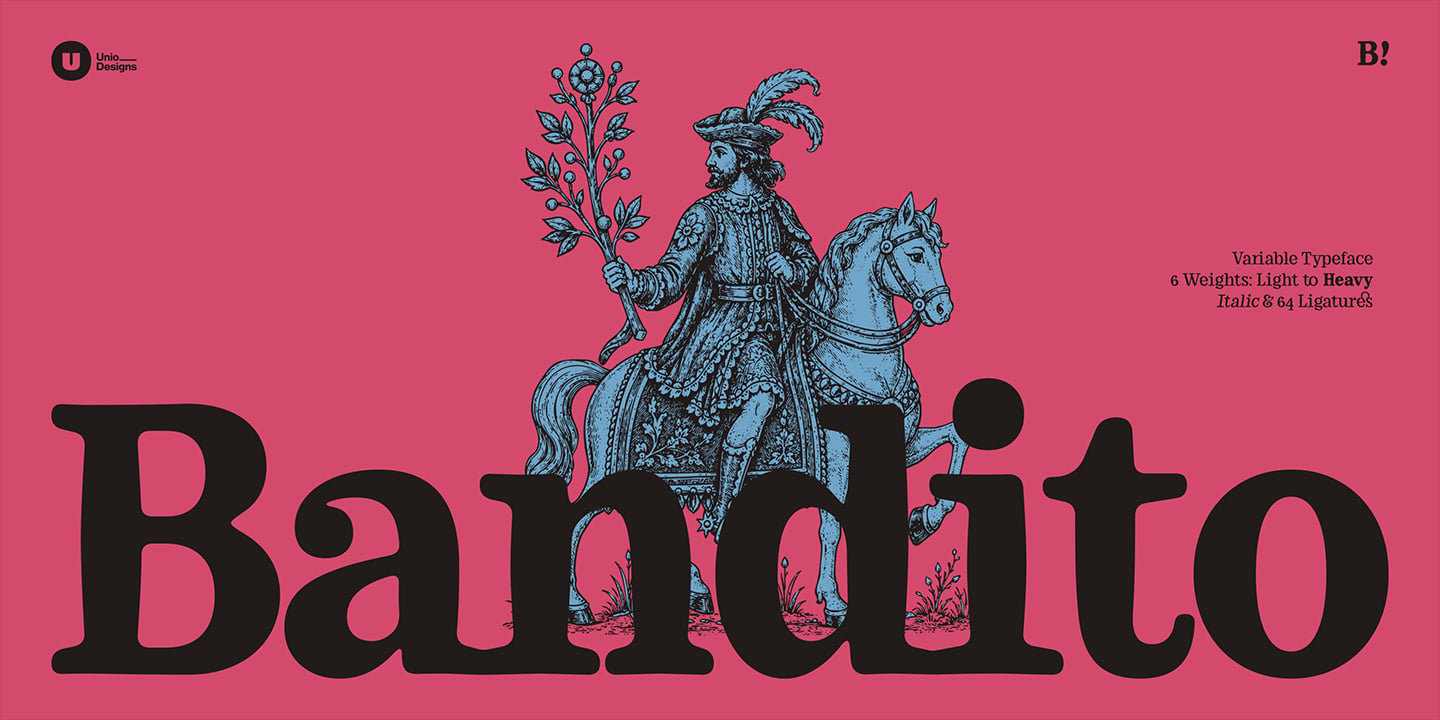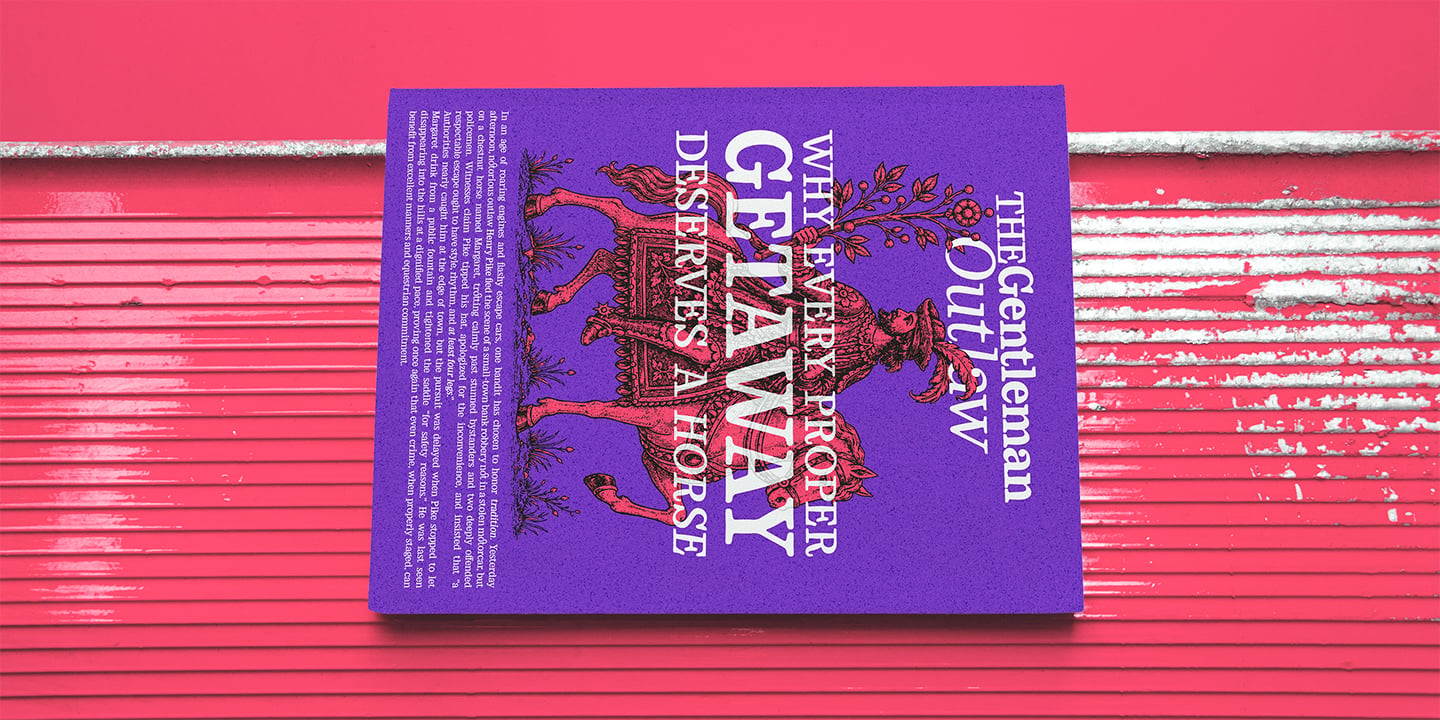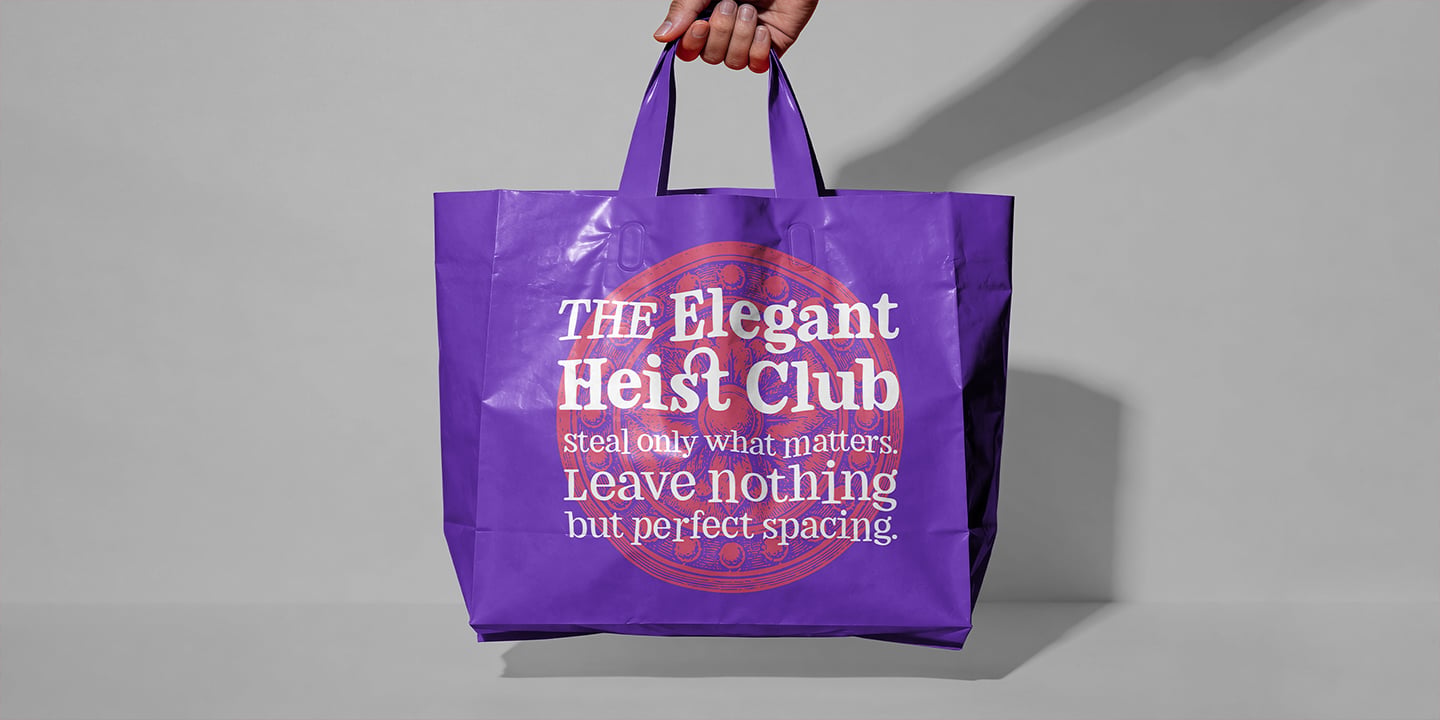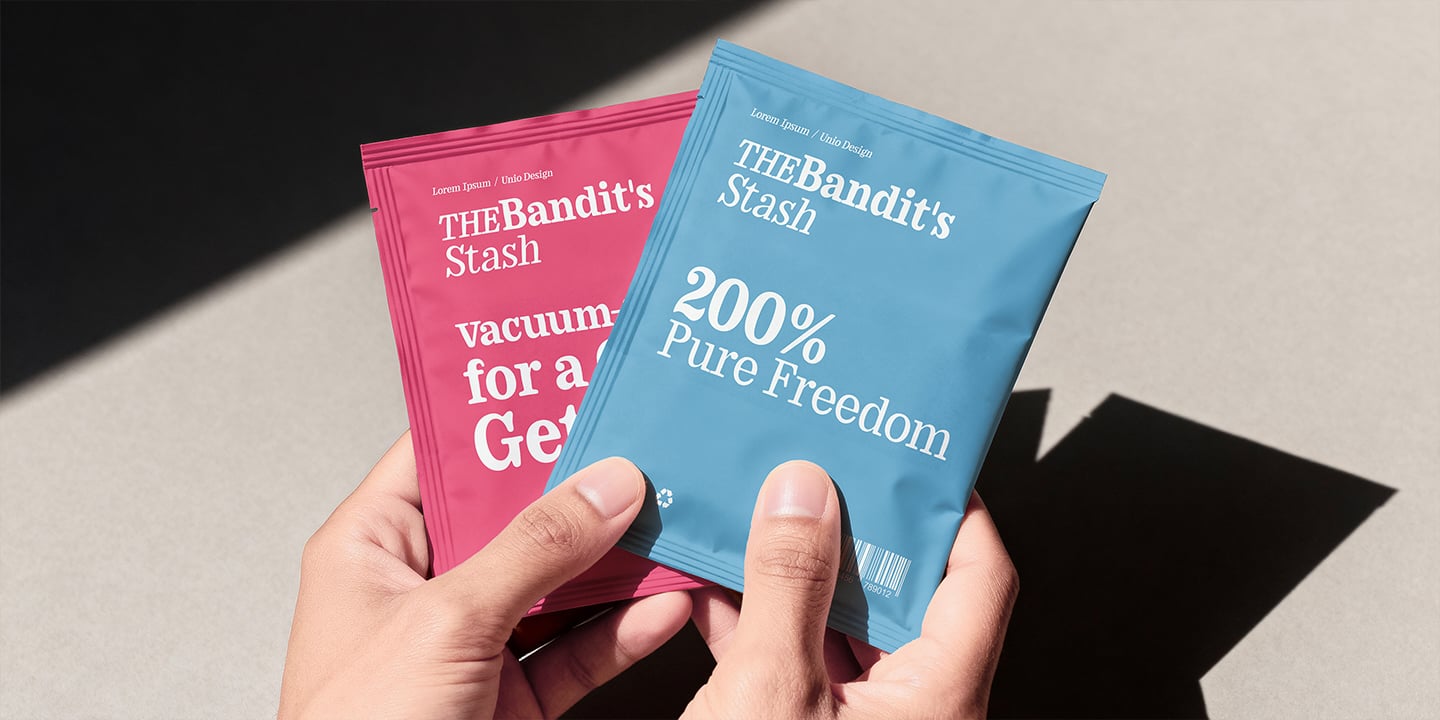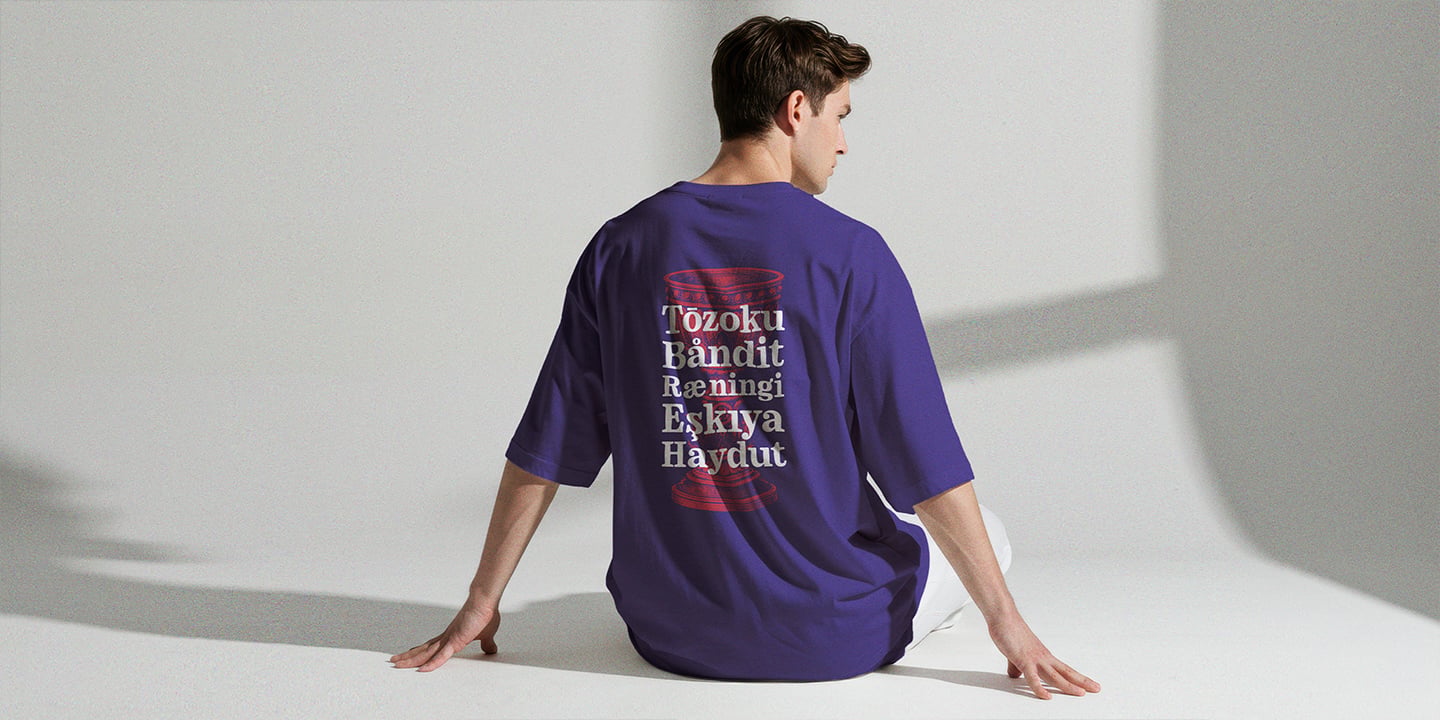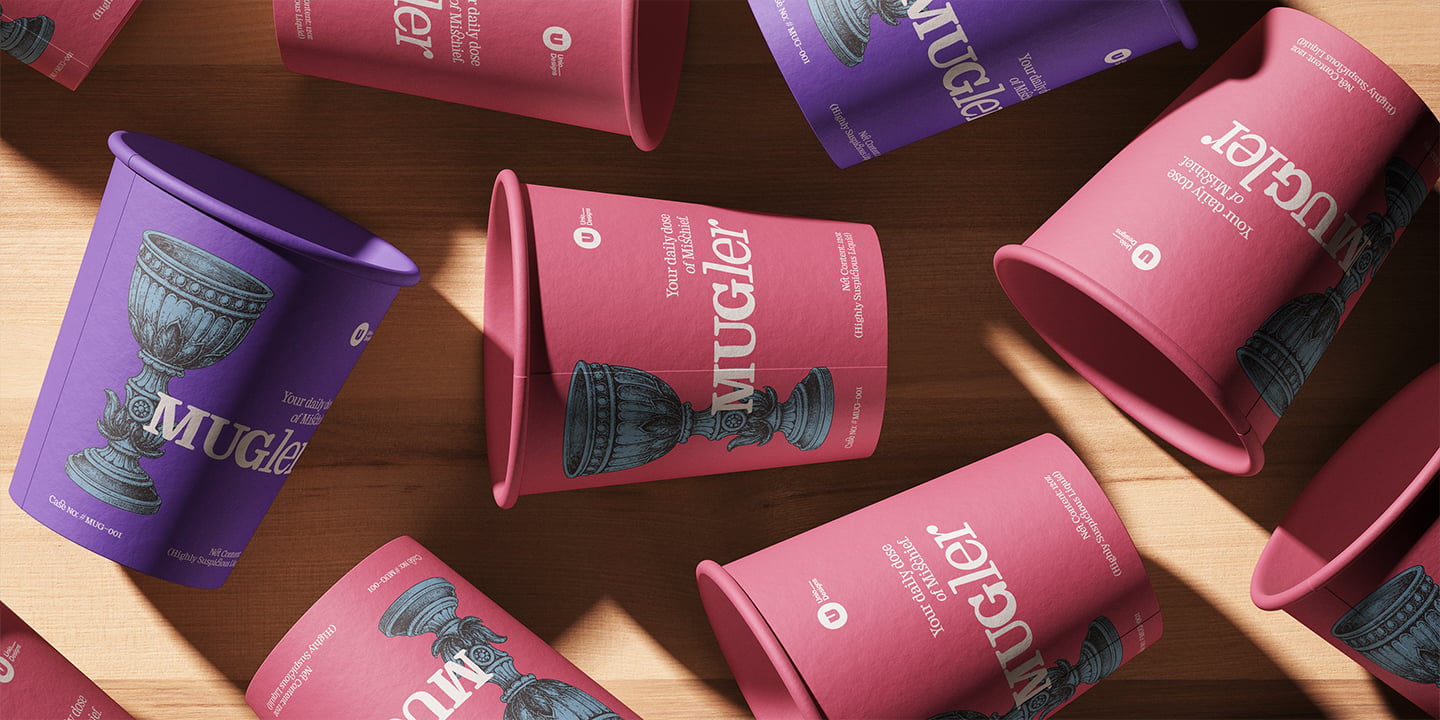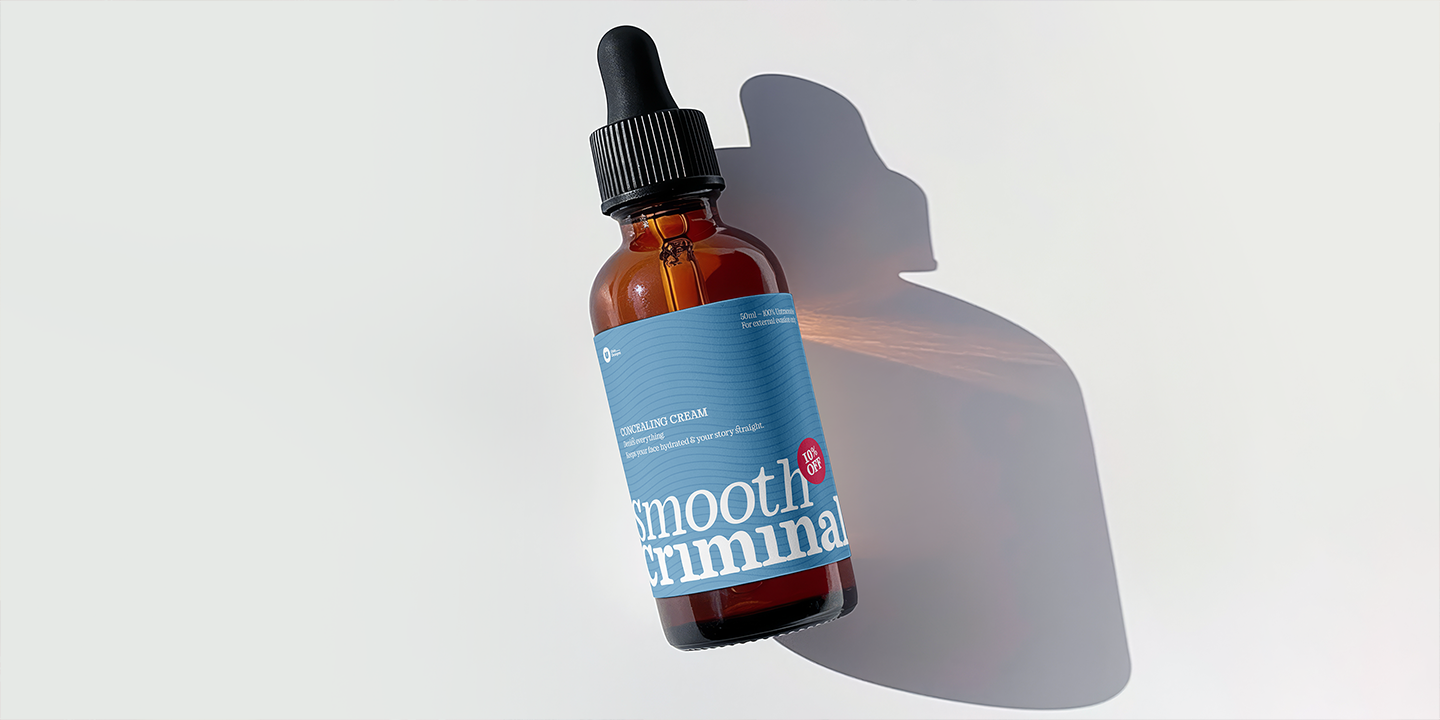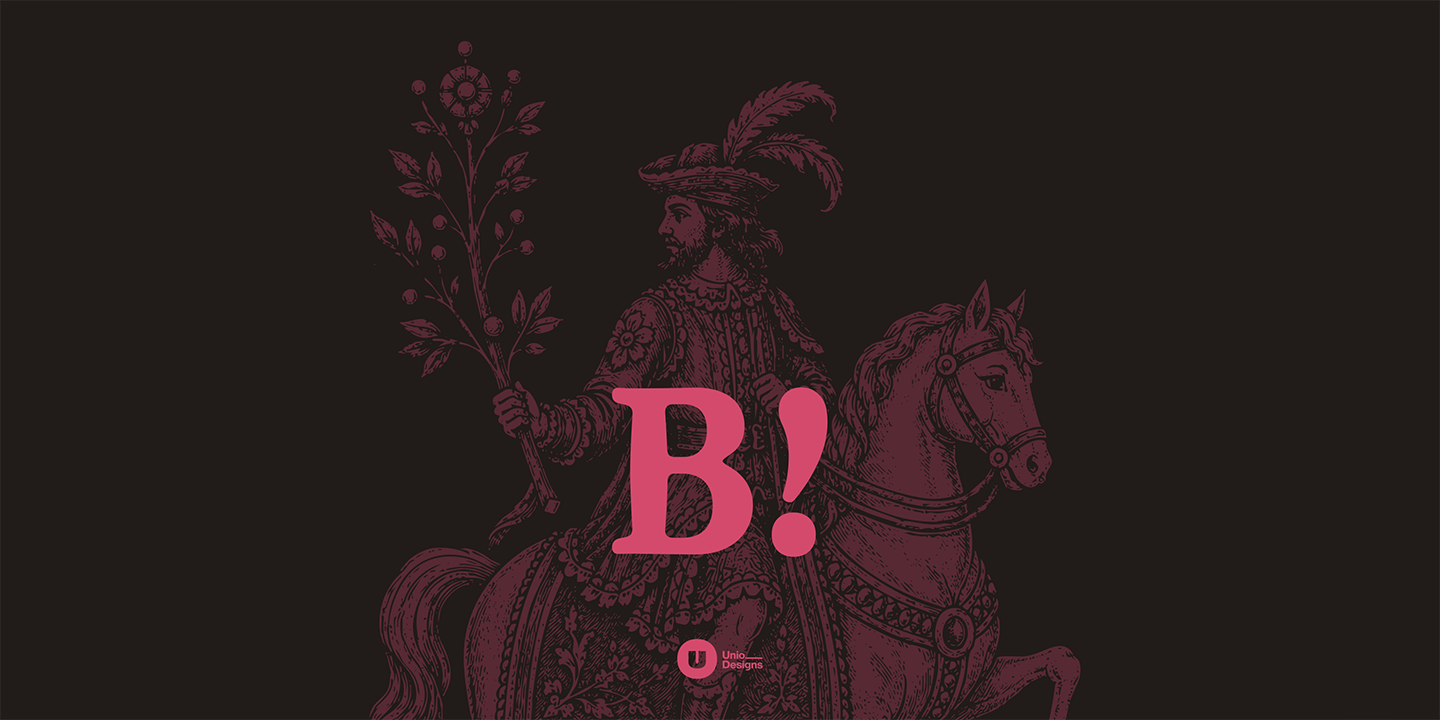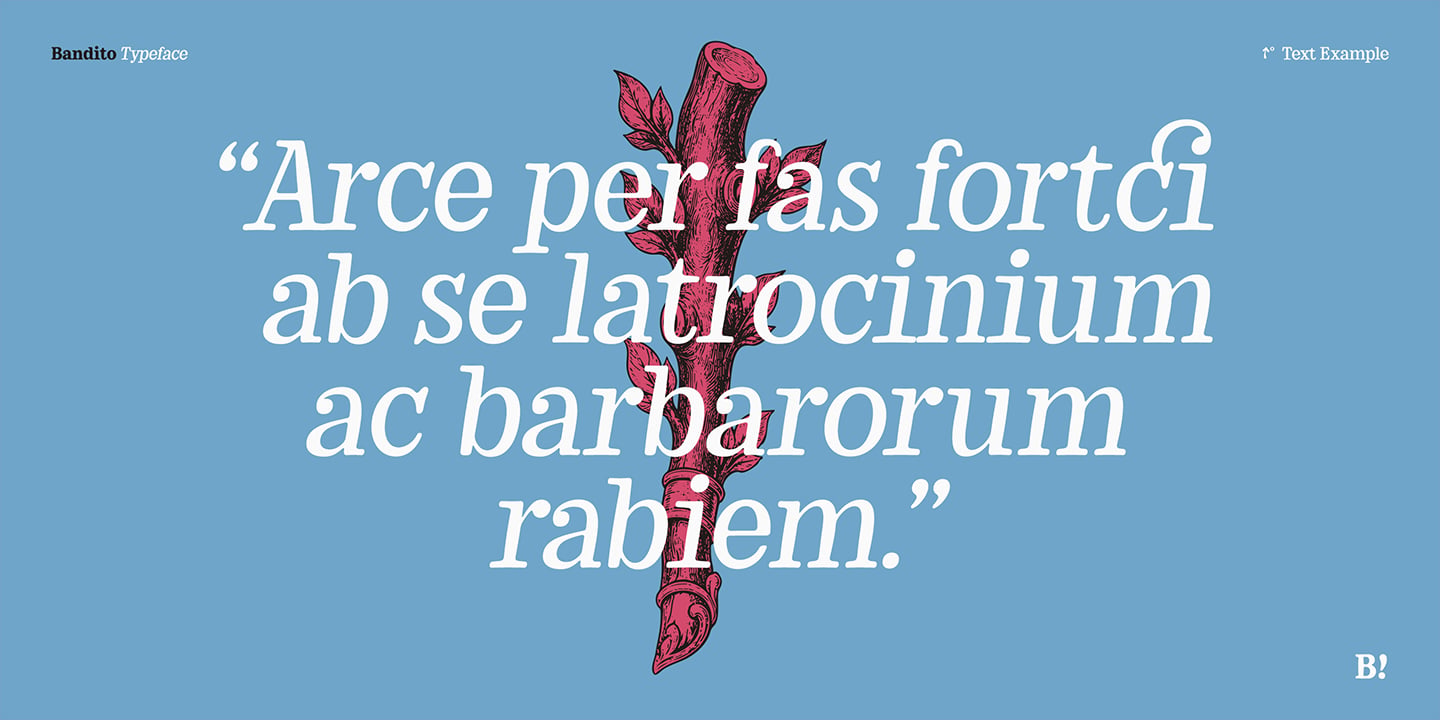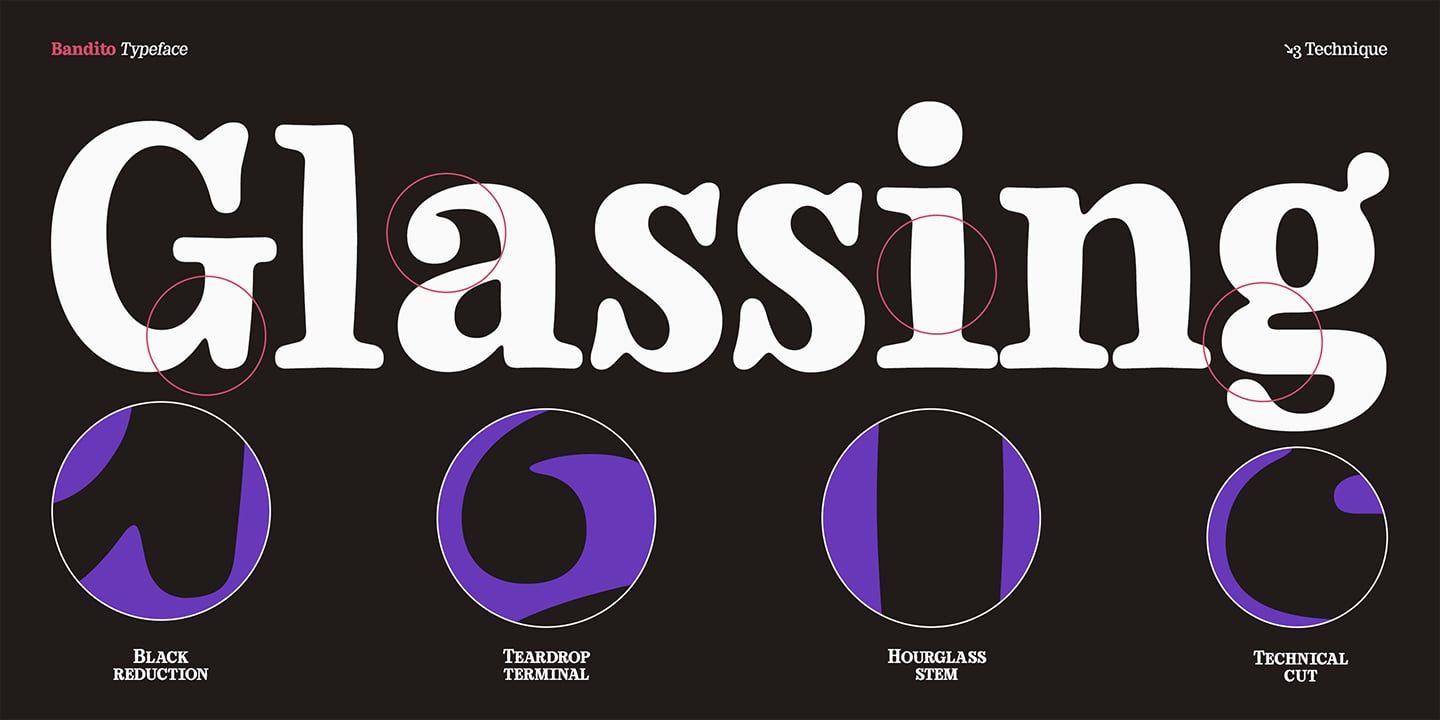
Bandito is a contemporary rounded serif inspired by the warmth and expressive visual culture of vintage Italian posters. It is a typographic system where..structural discipline and rebellious individualism coexist in constant tension.
Every glyph features a distinct architectural tension, defined by an hourglass-like bottleneck that holds back the ink at the base of each form. Signature characters and expressive ligatures introduce intentional deviations without compromising the system's overall coherence.
Bandito adapts purposefully across its variable range: lighter styles remain airy and refined, while the Black weight delivers a tight, densely compressed, and highly assertive silhouette.
- Full variable family with italic variants
- Expressive custom ligatures and alternate glyphs
- Small caps, circled numerals, fractions, and extended symbols
- Broad multilingual support for Latin-based scripts
Precisely calibrated for a controlled but dynamic rhythm, Bandito is ideal for brand identities, editorial layouts, music packaging, cultural campaigns, and retro-inspired digital work.
Bandito proves that the most compelling forms emerge where rebellion meets structure. Fight on.